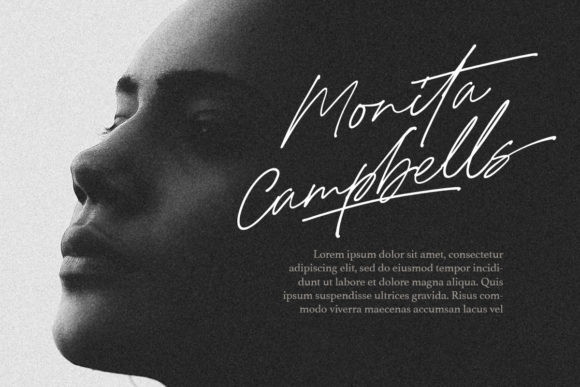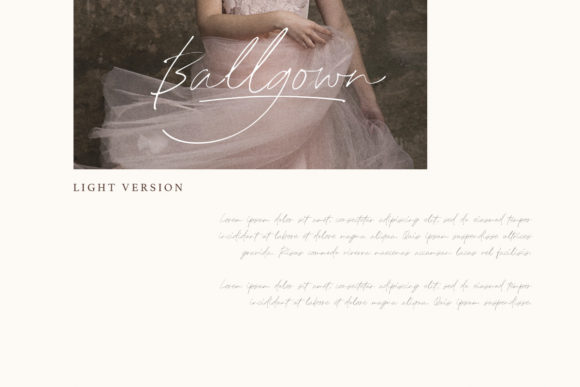
Holybuck Font
db-ku.com - Script & Handwritten -- Holybuck is a beautiful and refined script font. It has a classy, elegant and modern look that can be used for logos, branding, invitations, stationery, wedding designs, social media posts, and much more! Holybuck is PUA encoded which means you can access all of the glyphs and swashes with ease!